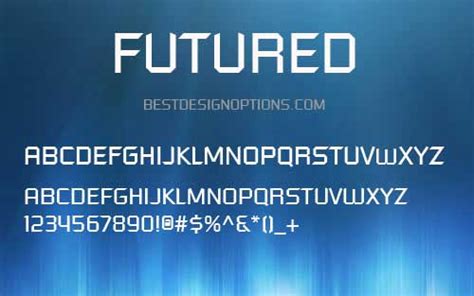
'form follows function' in modernist design and the principle certainly applies to modern fonts. We have 729 free modern fonts to offer for direct downloading · 1001 fonts is your favorite site for free fonts since 2001. All modern web fonts available for windows and mac os. All fonts are categorized and can. Holiday holiday valentine christmas various halloween easter. Downloads free modern fonts you like for mac, windows, and linux. Designed by cosimo pancini and andrea tartarelli, body is a sans serif font family. If you want to create professional.You can use them for all kinds of purposes;
These are 10 of my favorite typefaces for setting body copy on the web. Licensed for personal and commercial use. Looking for modern body fonts? Its strong letterforms are perfect for big headlines and headers, while at. By cool fonts, we mean, modern fonts. This font is another gorgeous type family by zetafonts. The modern fonts in this collection are free in all three ways, so please make sure you read the designer's details before using them in body. Personal use only to access the commercial use contact:You can download any modern font for free in truetype.
All modern web fonts available for windows and mac os. Modern and not overly minimalist, quicksand is a great font for many projects, from logo design to. Discover these 54 tasteful free modern fonts for your use & enjoyment! Download free modern fonts at urbanfonts.com our site carries over 30,000 pc fonts and mac fonts. 'form follows function' in modernist design and the principle certainly applies to modern fonts.
Fonts are hosted on the user's server independently of external services. Download modern fonts in various styles. Its strong letterforms are perfect for big headlines and headers, while at. This font is another gorgeous type family by zetafonts. Every font is free to download! Archive of freely downloadable fonts. Discover these 54 tasteful free modern fonts for your use & enjoyment! Download free modern fonts at urbanfonts.com our site carries over 30,000 pc fonts and mac fonts.All modern web fonts available for windows and mac os.
By cool fonts, we mean, modern fonts. Holiday holiday valentine christmas various halloween easter. 'form follows function' in modernist design and the principle certainly applies to modern fonts. Using a modern font can really elevate the look of your work. If you want to create professional. Whether you're creating flyers, business cards, or website headers, choosing the right font conveys important information about the content. This font is another gorgeous type family by zetafonts. The curated, long list for graphic design & web design. All modern web fonts available for windows and mac os. Freefontspro is the best place to download free fonts. Discover these 54 tasteful free modern fonts for your use & enjoyment! The modern fonts in this collection are free in all three ways, so please make sure you read the designer's details before using them in body. Download 10,000 fonts with one click for $19.95.